Canva Fonts play a significant role in Wedding Invitation Card Designs, setting the tone and mood for the entire event. Choosing the right Canva Wedding fonts can significantly enhance the visual appeal of your Canva Wedding Invitations, Design Elements, and more.
Canva offers a wide selection of fonts specifically curated for Wedding Designs. From calligraphy font, and elegant script fonts to modern sans-serifs, Canva provides various options for Different Styles and Themes.
Whether you prefer free wedding fonts or are looking for the best fonts combination to create a cohesive design, understanding the power of right font in Wedding Invites is essential for creating Memorable and Visually Stunning Elements for your special day.
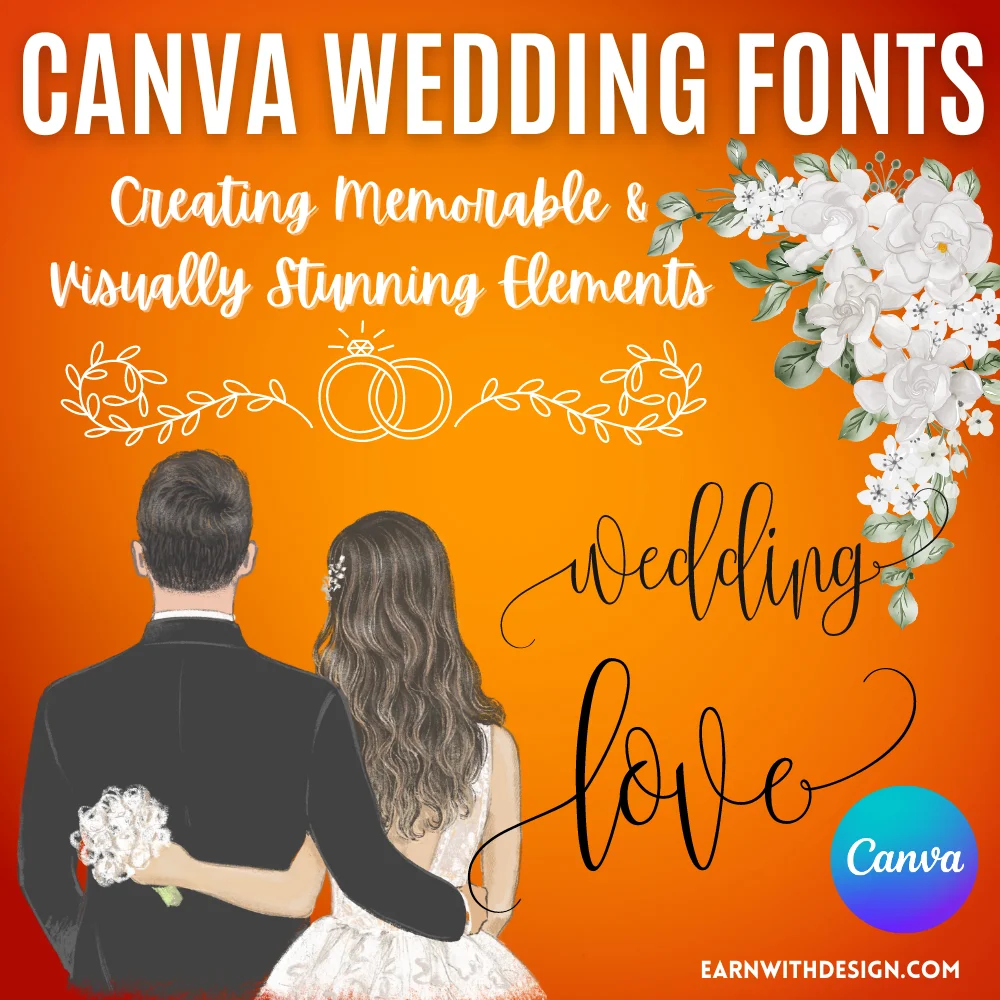
Top Canva Wedding Fonts to Elevate Your Design
Canva offers a variety of free good fonts that can elevate your Wedding Theme. These fonts are handpicked to bring your designs an elegant and personal touch.
When it comes to Wedding Designs, selecting the perfect font is vital for establishing the mood and crafting a memorable aesthetic. Canva's collection of free fonts includes beautiful script fonts, elegant cursive font, and handwritten script fonts that are perfect for wedding invitations, save-the-dates, and other related materials.
By discovering the best wedding fonts, you can elevate your design skills and craft beautiful visuals that embody the spirit of love and joyous celebration.
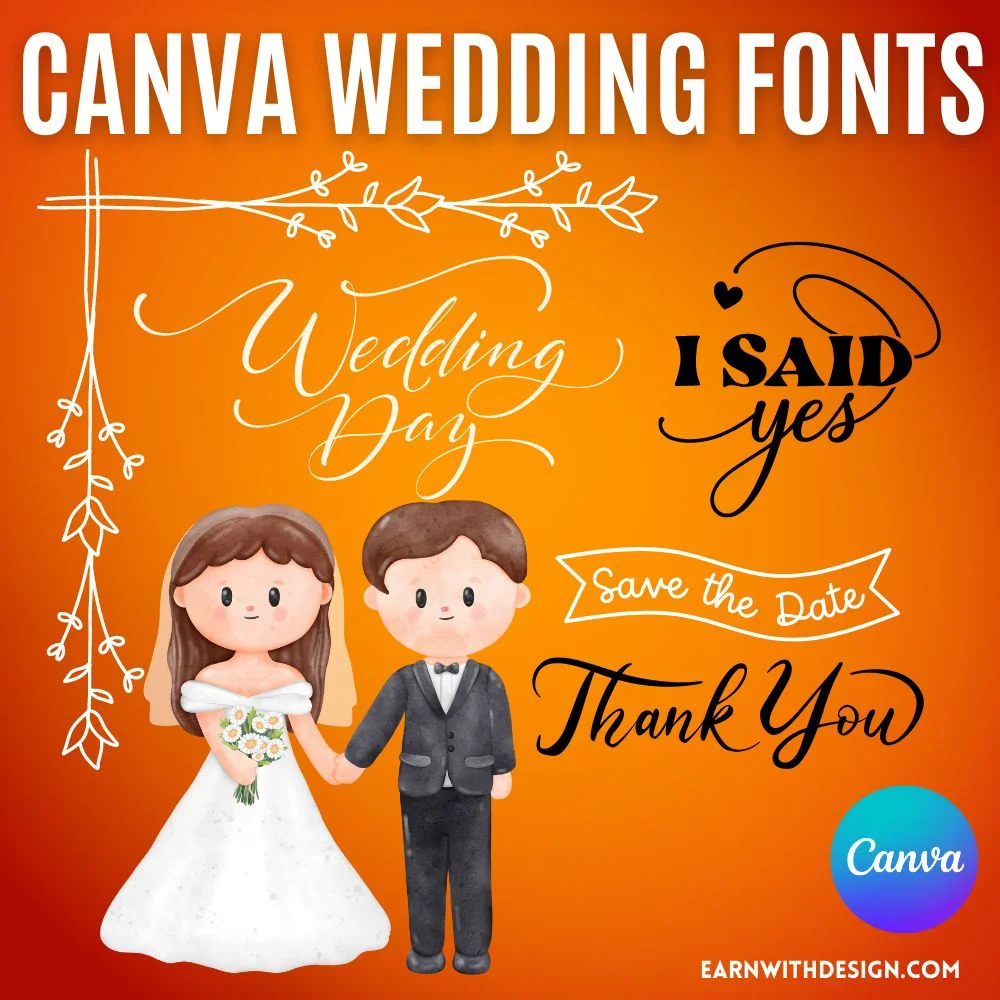
Key Considerations for Selecting the Ideal Canva Wedding Fonts
When choosing the ideal font for your wedding invitations, it's crucial to consider several factors. With so many options available, how can you determine which font best suits your needs?
Here are some key factors to keep in mind if you need great fonts:
1) Readability tip: Select a font that is easy to read and won't strain the eyes. Avoid ornate or calligraphic fonts, as they can be challenging to decipher. Choose a font that features distinct characters and utilizes contrasting colors.
2) Universality: Ensure your chosen font is compatible across different devices and platforms, such as emails, physical prints, animated videos, and websites. Opting for a universally compatible font guarantees a consistent experience for all guests.
3) Aesthetics: The best wedding invitations should be aesthetically pleasing. Pay attention to how your favorite Canva fonts appear online. Does it complement the overall look and feel of your event? Is the style suitable for the occasion? It's always a good idea to have a few backups.
4) Personalization: You may use signature fonts to personalize your names uniquely or design a wedding monogram or logo. In this scenario, opting for a highly decorative font is acceptable. Using one font for your names or monograms and a different, more legible font for your invitation details is recommended.
5) Mix and Match: Contrasting fonts create interest in your invitation and contribute to good design. Stick to 2 font options (or 3 for a monogram) and ensure they contrast yet complement each other. For example, if you use a bold calligraphy script, avoid pairing it with another script font; instead, opt for a delicate serif or sans serif font.
6) Font Family Options: Many fonts offer weights, italics, and alternative characters. Opting for a font that is part of a broader family will increase design flexibility and add visual interest.
Now, you can find the perfect font for your wedding invitations that aligns perfectly with your needs.
This will ensure your guests enjoy receiving the invitation and build excitement for your big day! Armed with this information, you can select a beautiful font that genuinely reflects the personality of your special occasion.
118 Canva Wedding Fonts That Add Romance to Your Invitations
Comprehensive collection of best wedding fonts available on Canva's platform. These carefully curated fonts are specifically designed to add an elegant and romantic touch to any wedding-related design or others different projects.
Abril Fatface
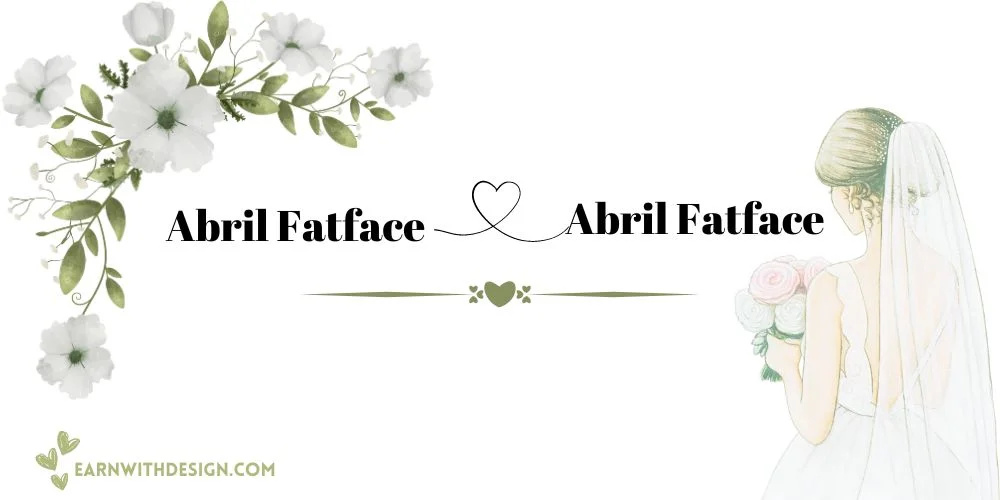
Advetime
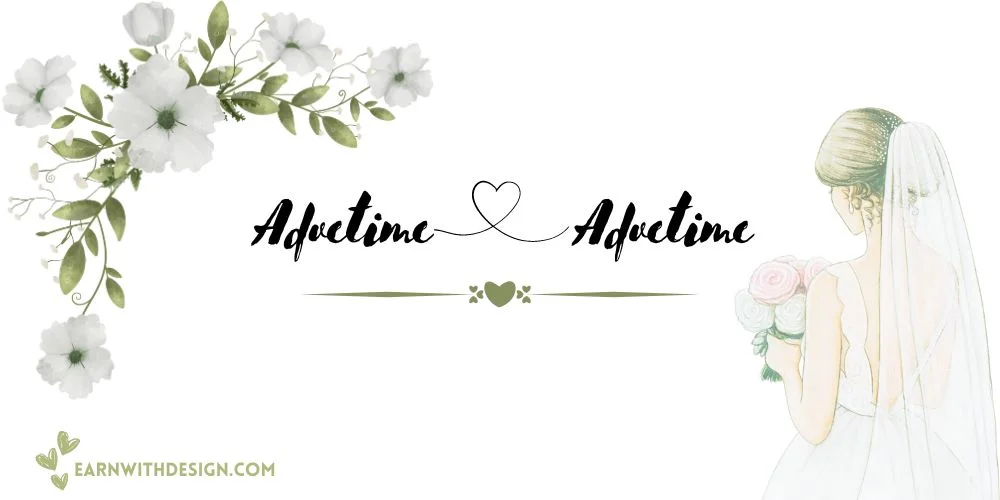
Afrah
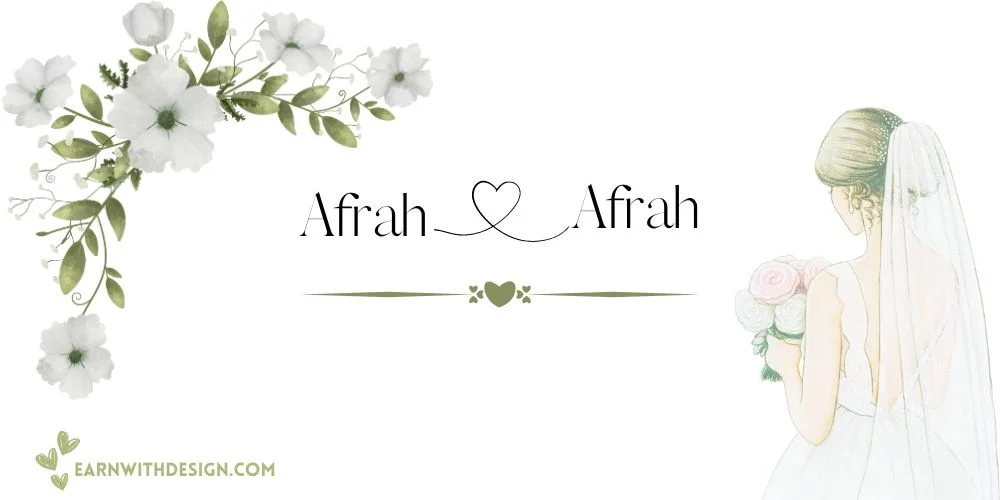
Alex Brush
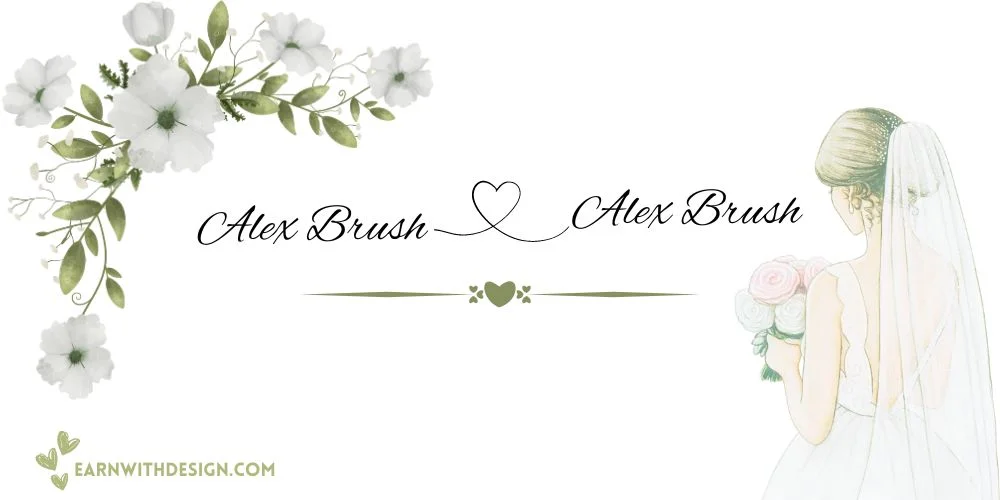
Alta
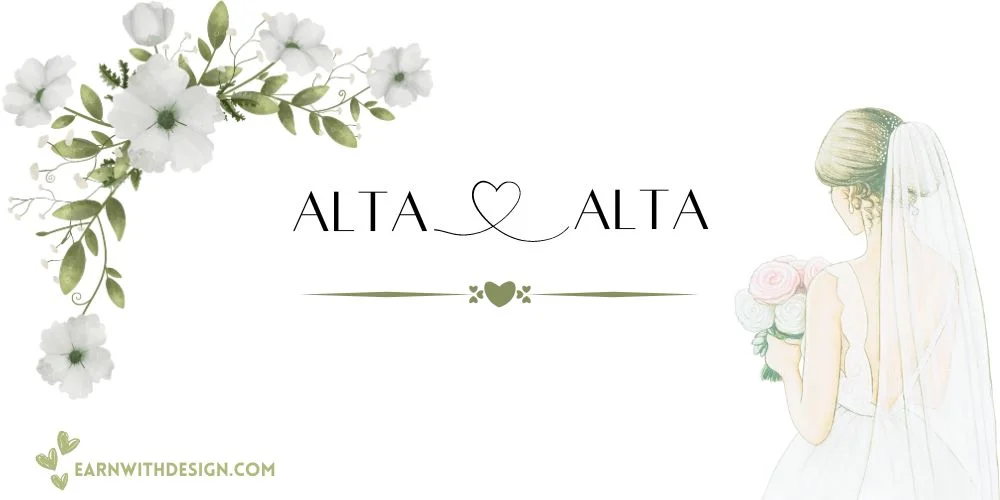
Amsterdam One & Amsterdam Two
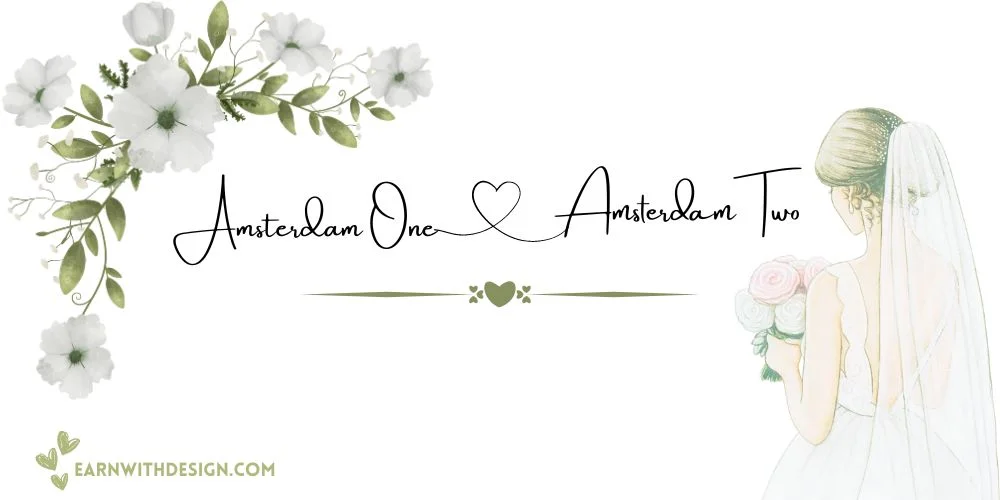
Amsterdam Three & Amsterdam Four
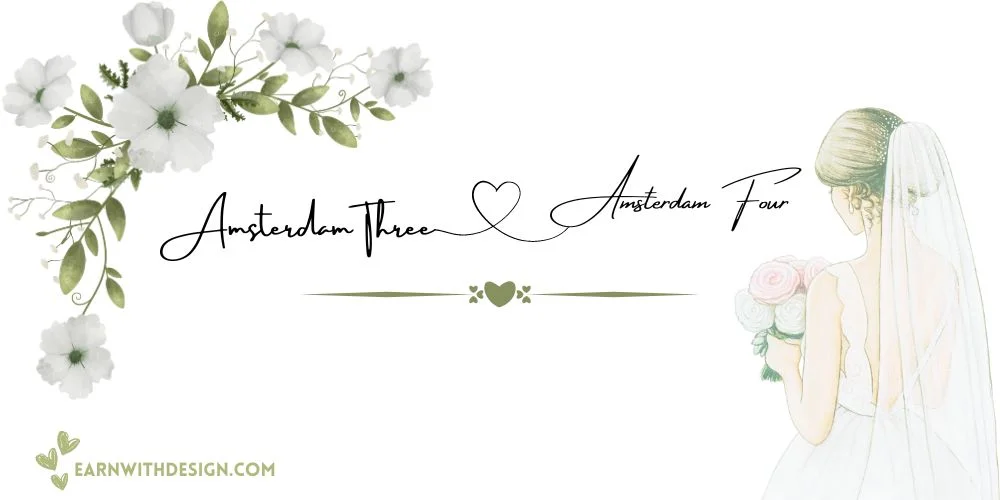
Anastasia Script
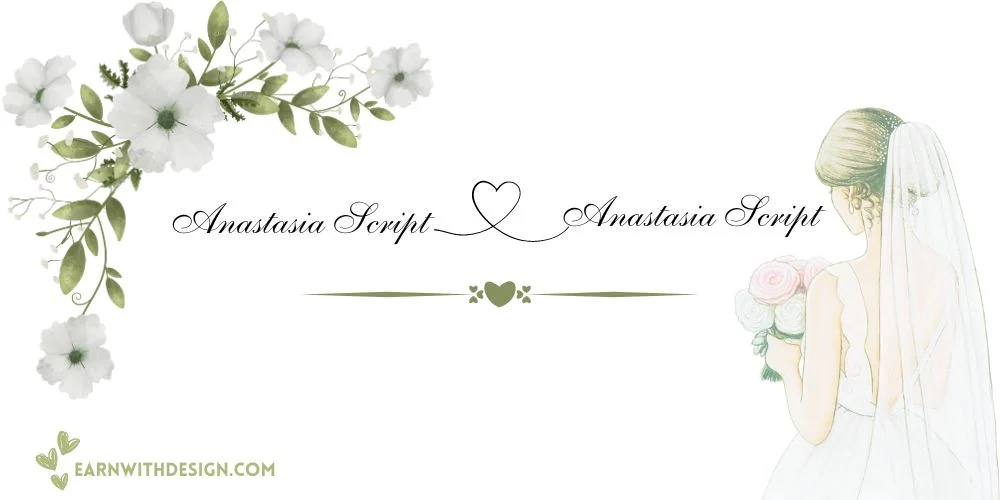
Angelina
Aniyah
Apricots
Battery
Bellaboo
Beth Ellen
Black Mango
Blacktear
Blastine
Bakerie
Breathing
Bright Sunshine Script
Brightwall
Brittany
Say "I do" to beautiful typography and let your designs narrate enchanting tales of love and happiness. Embrace the magic of Canva wedding fonts and watch your creations come alive with emotion, style, and sophistication.